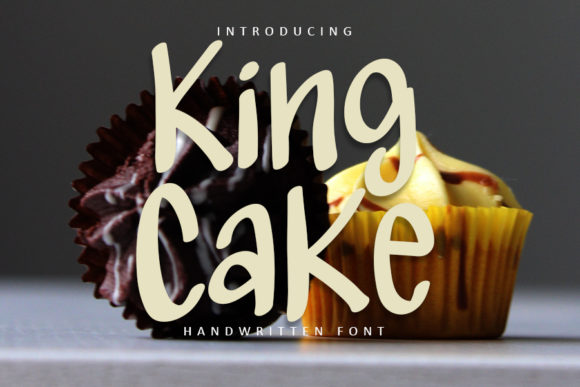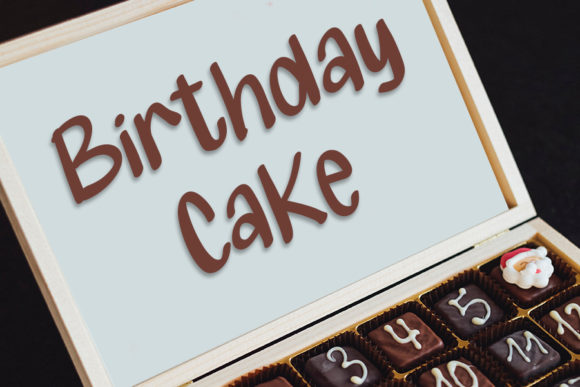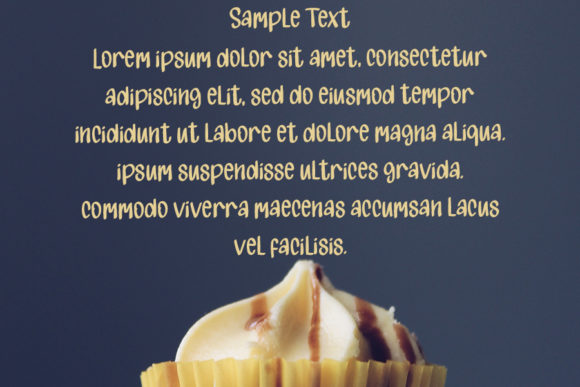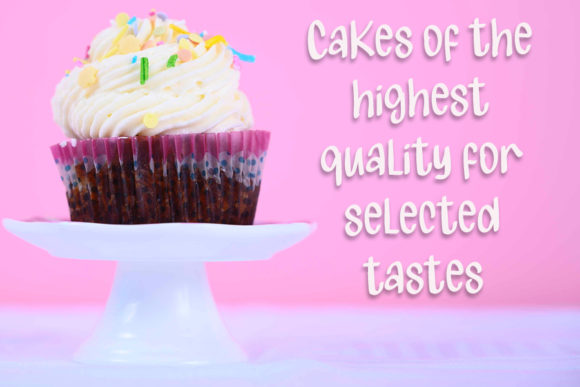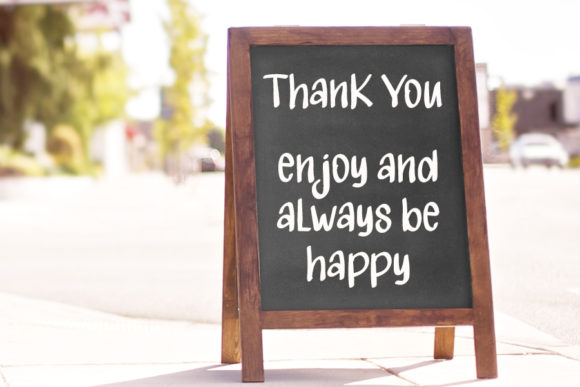
About King Cake Font
King Cake is a smooth handwritten font that is handcrafted to add an authentic feel to your crafts and project such as T-shirt designs, logos, business cards, posters, flyers, etc.